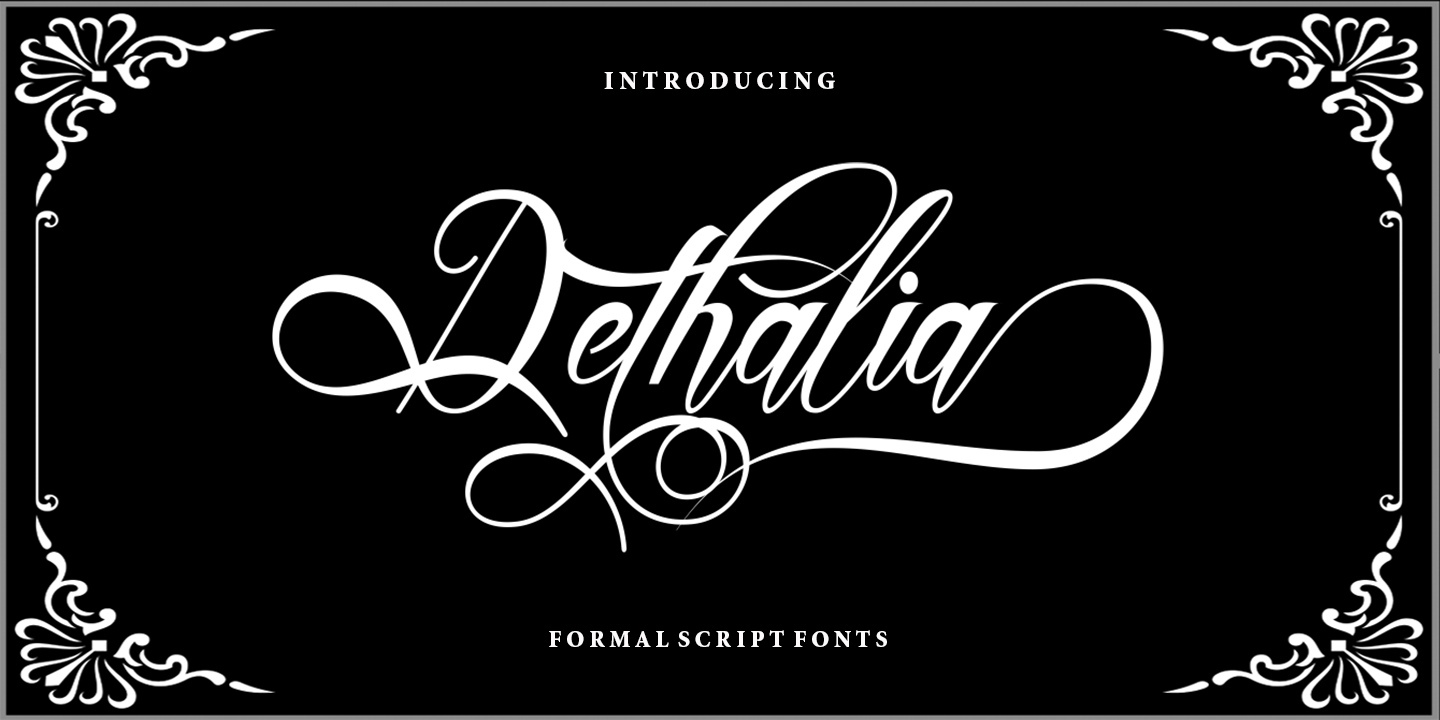
Dethalia Font
Dethalia Font is perfect for luxury branding, high-end fashion logos, elegant wedding invitations, premium packaging design, sophisticated magazine layouts, upscale restaurant menus, jewelry branding, beauty product labels, and exclusive event materials.
Dethalia Font is exciting because it exudes unparalleled sophistication and timeless elegance with its refined letterforms and graceful proportions that instantly elevate any design to luxury status. Its distinctive character combines classical beauty with contemporary finesse, making it the perfect choice for brands that demand exclusivity and premium positioning in competitive markets.
The Dethalia Font family includes Light, Regular, Medium, Bold weights, elegant Italic variations, Decorative capitals, Swash alternates, Stylistic sets, Ligatures, and Ornamental elements, providing designers with comprehensive tools for creating sophisticated typographic hierarchies and luxurious brand experiences.
Whether you're developing luxury brand identities, designing high-end product packaging, creating exclusive event materials, or producing premium editorial content, Dethalia Font provides the sophisticated foundation needed for extraordinary design outcomes. Its refined character makes it particularly effective for fashion houses, luxury hotels, premium cosmetics, fine jewelry, and exclusive service providers.
Perfect for luxury brand managers, high-end design agencies, fashion designers, and creative directors working with premium clients, this font offers the distinguished qualities essential for successful luxury positioning. The typeface's elegant nature ensures memorable brand experiences that justify premium pricing and exclusivity expectations.
Dethalia Font includes extensive character coverage, professional typography features, and refined spacing that guarantees flawless performance in demanding luxury applications. Its sophisticated approach to letterform design makes it indispensable for brands competing in luxury markets. Elevate your designs to luxury status with Dethalia Font Free Download and create typography that epitomizes elegance and exclusivity.